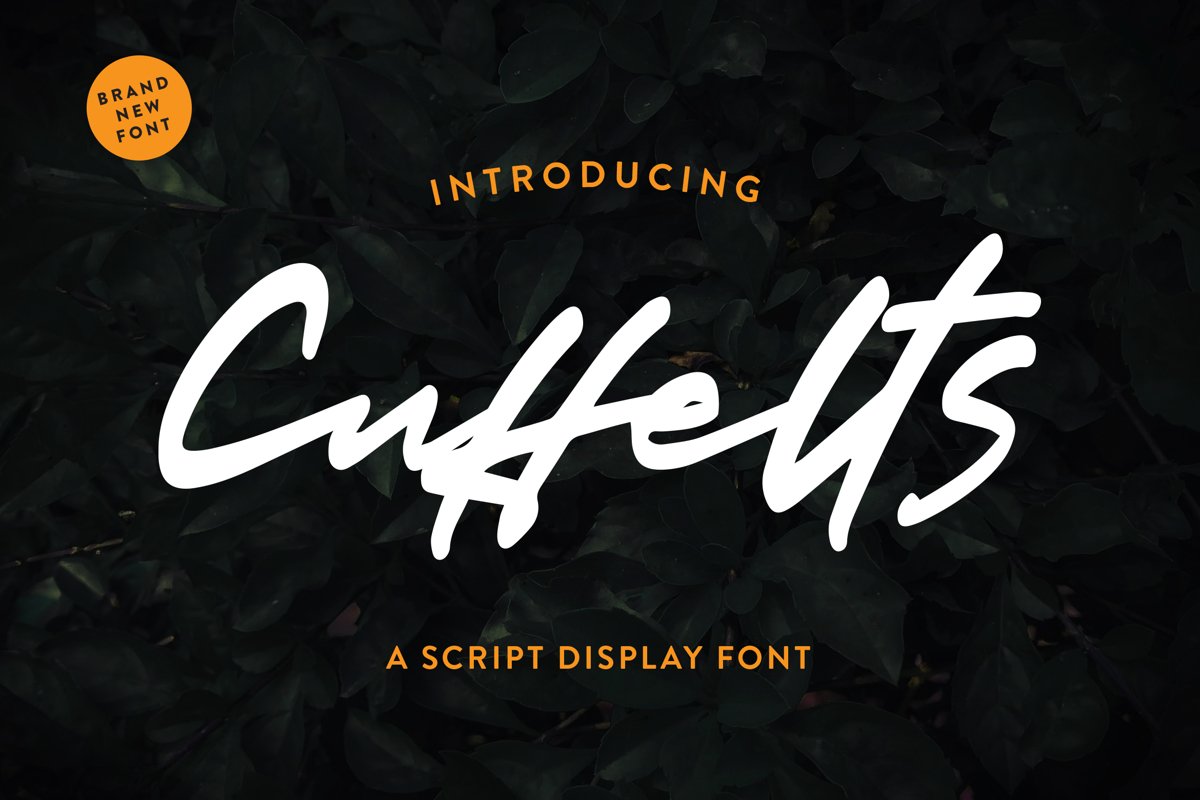
Cuffelts - Script Display Font that contain lowercase, uppercase, symbol, and also support multi language. There’s a lot ligatures in this font. This Font also comes with ligatures, alternates and many more. this font suitable for fashion, branding, catalog and other design what you want.
Cuffelts